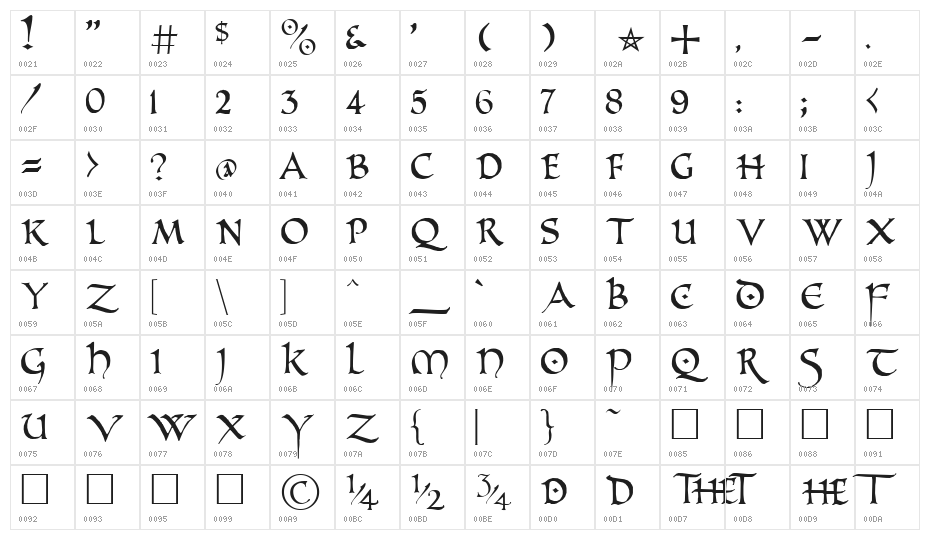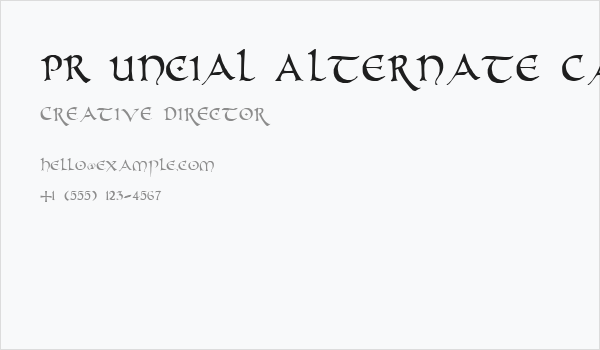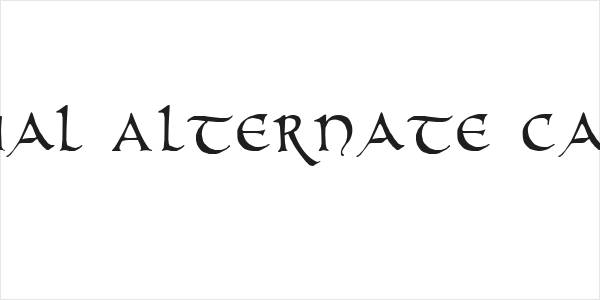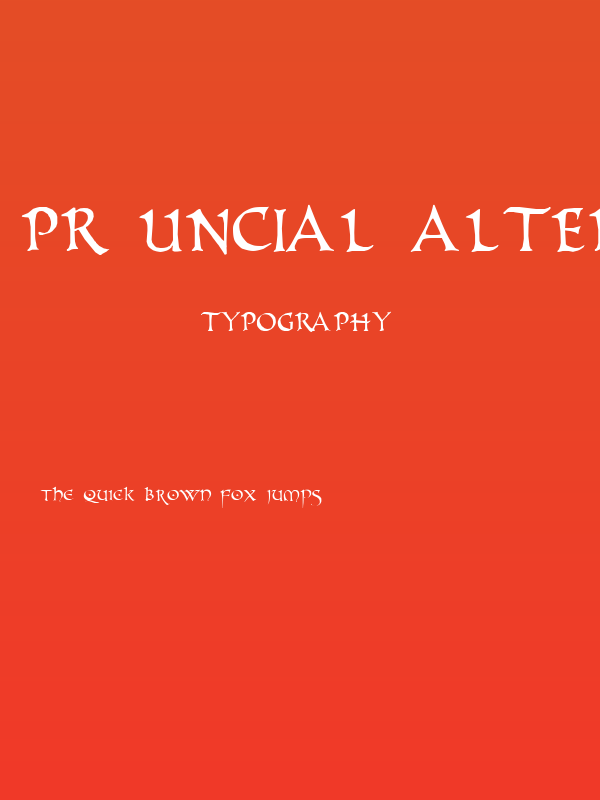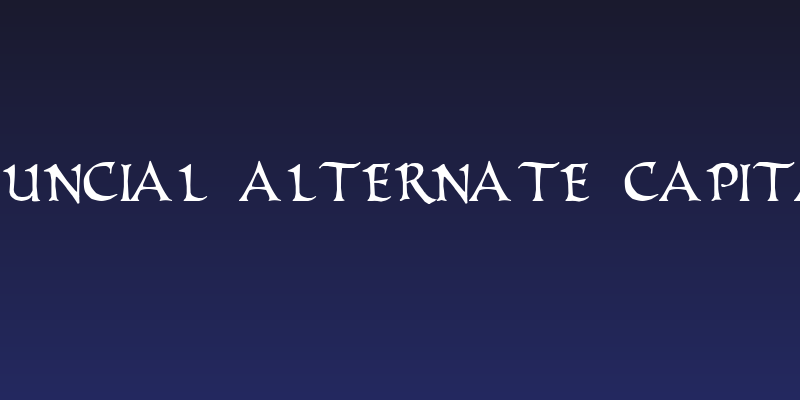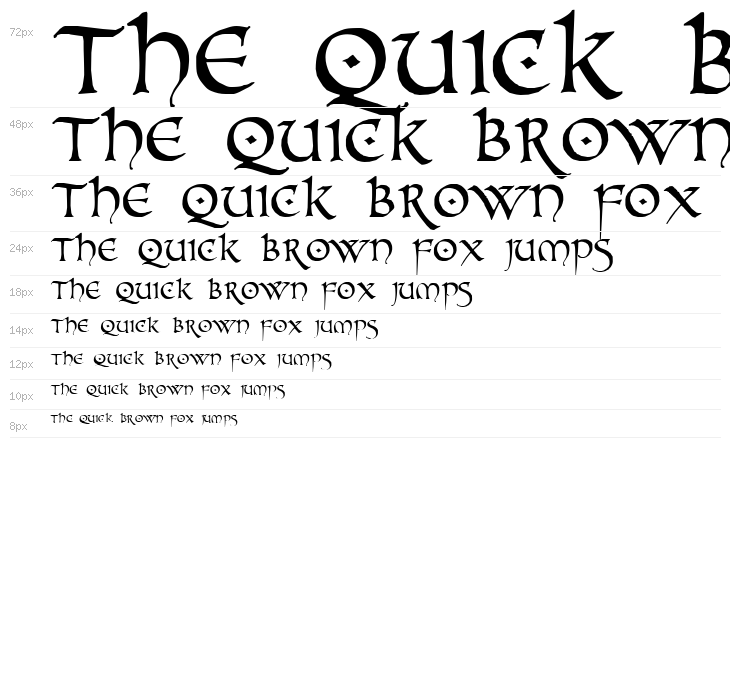
PR Uncial Alternate Capitals Font
PR Uncial Alternate Capitals Description
This font exudes a medieval and historical charm, reminiscent of ancient manuscripts and inscriptions. The characters are uniquely crafted with a blend of sharp and rounded edges, giving them an ornate and decorative appearance. The uppercase letters are bold and commanding, while the lowercase letters maintain a consistent style that complements the overall aesthetic. The numerals are distinct and easily recognizable, maintaining the same stylistic elements as the alphabet. Special characters are creatively designed, adding to the font's versatility. This font is perfect for projects that require a touch of antiquity and elegance.
| Use Case | Headlines, Logos, Decorative text |
| Proposed Projects | Ideal for historical novels, fantasy games, medieval-themed events, and decorative signage. |